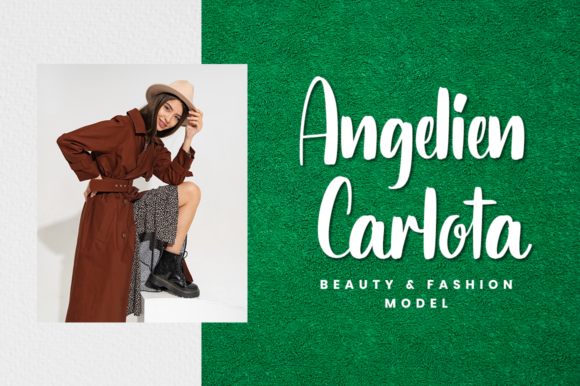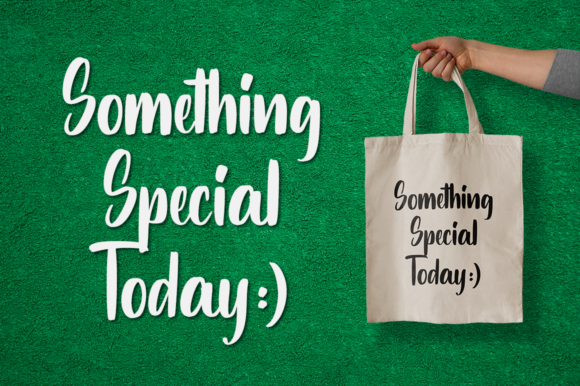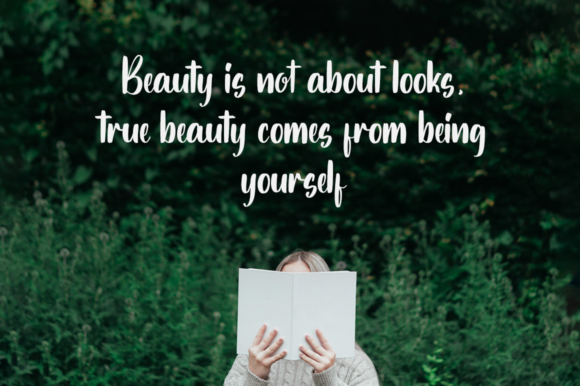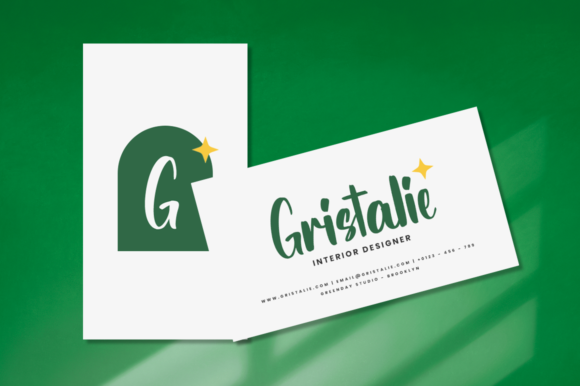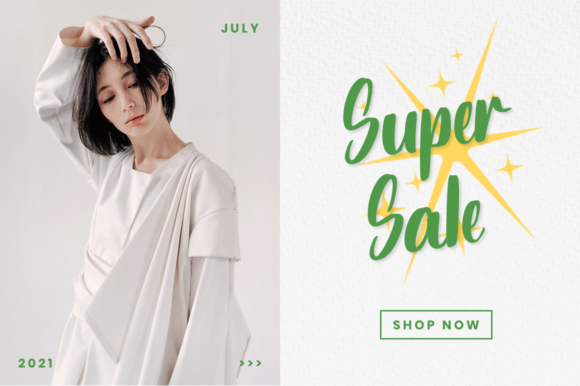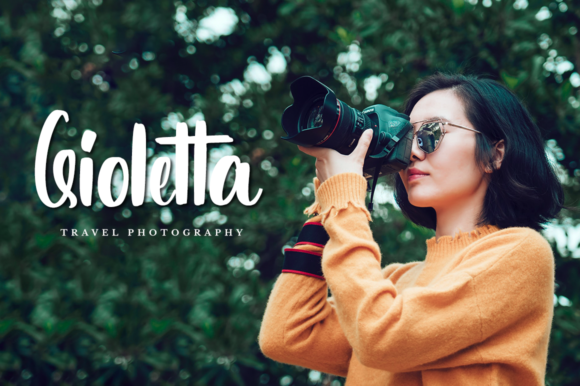
Introduction to Magicstar Font
As a designer, have you ever found yourself staring at a blank canvas, trying to capture the essence of your creative vision, but struggling to find the perfect font to bring it to life? For many of us, this is a familiar experience, but it doesn’t have to be. That’s where the Magicstar Font comes in – a stunning script font that’s sure to elevate your next creative project.
With its elegant, contemporary design and impeccable form, the Magicstar Font is the perfect addition to any design resource. Whether you’re working on a high-quality project that requires a sophisticated touch or simply need a beautiful font to enhance your free download, Magicstar Font is sure to impress. Its balanced and varied design makes it an ideal choice for designers who value versatility and style.
So why is Magicstar Font so valuable to designers? For starters, its transparent background makes it easy to use on any background, ensuring that your design stands out without overpowering the rest of the composition. With its timeless classic calligraphy inspiration, Magicstar Font is the perfect choice for designers who want to add a touch of sophistication and elegance to their next creative project.
Key Features of Magicstar Font
- Unique characteristics include its elegant, modern design and versatility, making it suitable for a wide range of applications, from branding and logos to digital and print materials.
- Designed to be easily scalable, ensuring that the font remains clear and legible at various sizes, from small text to large headlines.
Honest Review: Magicstar Font
I recently stumbled upon the Magicstar Font while searching for a unique design resource to elevate my creative project. I was pleasantly surprised by the high quality of this font, making it a great addition to my collection.
- ✨ The font has a transparent background, making it easy to use in various design contexts.
- ✨ The font’s creative and whimsical design makes it perfect for projects that require a touch of magic.
- ⚠️ The font may not be suitable for formal or professional projects due to its playful nature.
- ⚠️ The font’s unique design may not be easily readable in certain contexts, such as small text sizes.
Overall, I’m impressed with the Magicstar Font’s potential and versatility. While it may not be suitable for every project, it’s a valuable design resource for creatives looking to add some magic to their work.
Tips for Getting the Most Out of Magicstar Font
To get the most out of the Magicstar Font, consider using it with a transparent background to create a modern and sleek design. You can also experiment with different font sizes and colors to create a unique look.
The Magicstar Font is ideal for use in logos, branding materials, and other creative projects where a unique touch is required. Its high-quality design and transparent background make it a versatile resource for designers and non-designers alike.